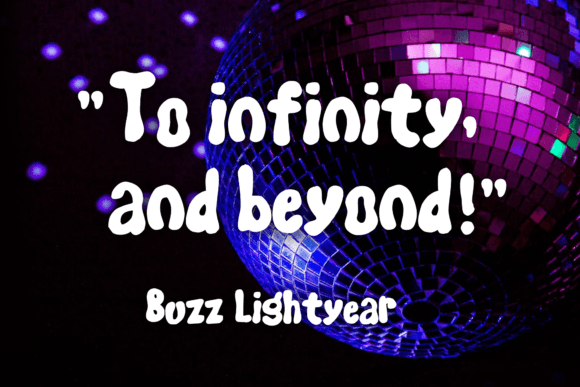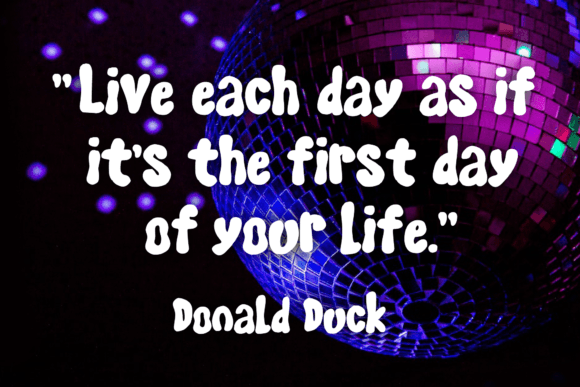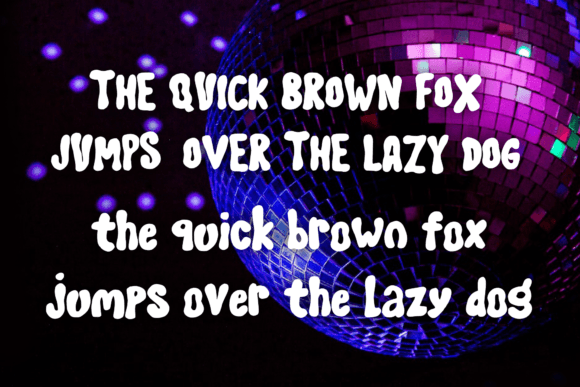
Groove Master Font: Add a Funky Touch to Your Designs
Are you looking for a font that can add a playful and casual touch to your designs? Look no further than the Groove Master font! This funky and groovy display font is perfect for a wide range of projects, from t-shirts and kids’ book designs to greeting cards, stickers, and posters. In this article, we’ll take a closer look at the Groove Master font and explore its features, uses, and benefits.
What is Groove Master Font?
Groove Master is a display font designed to add a fun and carefree touch to your designs. Its incredibly versatile style makes it suitable for a wide range of projects, from playful and casual to bold and eye-catching. The font features a unique and quirky design, with bold lines and a funky vibe that’s sure to grab attention.
Key Features of Groove Master Font
• Fun and playful design: Groove Master font features a unique and quirky design that’s perfect for adding a playful touch to your designs.
• Highly versatile: The font is suitable for a wide range of projects, from t-shirts and kids’ book designs to greeting cards, stickers, and posters.
• Easy to read: Despite its playful design, Groove Master font is easy to read, making it perfect for use in titles, headings, and short paragraphs.
• Scalable: The font is highly scalable, making it suitable for use in a variety of sizes and formats.
Uses of Groove Master Font
Groove Master font is perfect for a wide range of projects, including:
• T-shirts and apparel: Add a funky touch to your t-shirt designs with Groove Master font.
• Kids’ book designs: The font’s playful design makes it perfect for use in kids’ book designs, such as storybooks, activity books, and more.
• Greeting cards and invitations: Add a personal touch to your greeting cards and invitations with Groove Master font.
• Stickers and labels: The font’s bold and playful design makes it perfect for use in stickers and labels.
• Posters and flyers: Use Groove Master font to create eye-catching posters and flyers that grab attention.
Benefits of Using Groove Master Font
There are many benefits to using Groove Master font in your designs, including:
• Adds a playful touch: Groove Master font adds a fun and playful touch to your designs, making them more engaging and attention-grabbing.
• Increases creativity: The font’s unique and quirky design can help inspire creativity and add a fresh perspective to your designs.
• Versatile: Groove Master font is highly versatile, making it suitable for use in a wide range of projects and formats.
Tips for Using Groove Master Font
Here are a few tips for using Groove Master font in your designs:
• Use it sparingly: While Groove Master font is perfect for adding a playful touch to your designs, it’s best to use it sparingly to avoid overwhelming the viewer.
• Pair it with other fonts: Experiment with pairing Groove Master font with other fonts to create a unique and eye-catching design.
• Experiment with colors: The font’s bold and playful design makes it perfect for use with bright and bold colors.
Font Name Groove Master Font
Author MVMET
Groove Master font is a funky and groovy display font that’s perfect for adding a playful touch to your designs. Its incredibly versatile style makes it suitable for a wide range of projects, from t-shirts and kids’ book designs to greeting cards, stickers, and posters. With its easy-to-read design, scalability, and ease of use, Groove Master font is a great addition to any designer’s toolkit. So why not give it a try and see how it can add a funky touch to your designs?